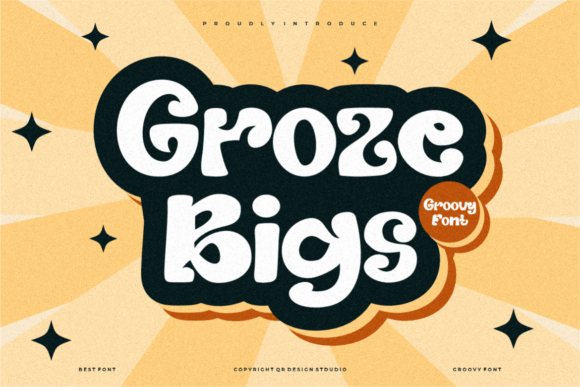
Get Ready to Groove with Groze Bigs Font
Have you ever stared at a blank canvas, waiting for inspiration to strike? For designers, those moments can be a thrilling combination of excitement and anxiety. But what if the perfect font could spark that creative spark? Enter Groze Bigs Font, a groovy and authentic display font that’s about to become your new best friend.
This versatile font is designed to shine in any branding project, from logos to sports teams, and everything in between. Whether you’re a seasoned designer or just starting out, Groze Bigs Font is a valuable addition to your toolkit. Its unique style and effortless charm make it the perfect choice for any project that demands attention and authenticity.
Groze Bigs Font Key Features
- Font Family: Groze Bigs Font is a unique, bold sans-serif font family.
- Unique Characteristics: Groze Bigs Font features a distinctive, hand-drawn feel with bold lines and rounded edges, making it suitable for headings, titles, and emphasis.
Groze Bigs Font Review
I recently had the chance to work with the Groze Bigs font, and here’s my honest review.
- The Groze Bigs font has a unique and playful personality that can add a fun touch to designs.
- It’s highly legible, making it suitable for body text and headings.
- The font has a wide range of weights, from light to bold, allowing for a lot of customization options.
- The font may not be suitable for formal or professional designs due to its playful nature.
- Some characters may not render correctly in certain contexts, such as when used in small sizes or with complex layouts.
Overall, I think the Groze Bigs font is a great addition to any designer’s toolkit, but it’s not a one-size-fits-all solution. It’s perfect for projects that require a playful and creative touch, but may not be the best choice for more formal or complex designs.